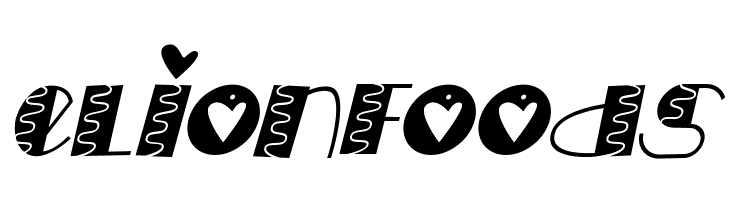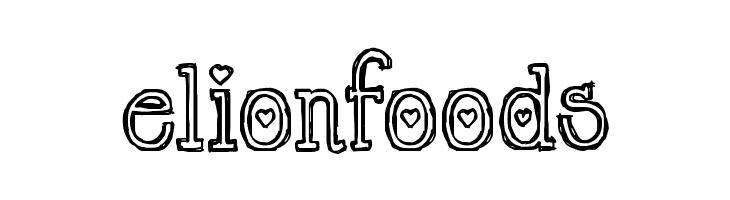
• Louis George Café Light Italic
( Chen Yining )
A sleek, modern, light italic font with smooth curves and consistent stroke width.
• Love And Faith
A playful, casual handwritten font with smooth curves and a slightly slanted style.
• LOVE doly
A playful, decorative font with heart motifs and bold, whimsical characters.
• LOVE doly Italic
A playful, heart-themed italic font with bold, decorative letterforms.
• LoveBombs
A bold, distressed font with a grunge, urban street art vibe.
• LovesLabour
An ornate and decorative script font with elaborate flourishes.
• Lovina Script
A graceful, cursive script font with a natural, handwritten style.
• LRT Chickenhawk
• LRT Nutshell Library
( Lauren Thompson - www.nymfont.com/ )
A bold, decorative font with intricate patterns and playful details.
• LRT Nutshell Library Black
( Lauren Thompson - www.nymfont.com/ )
A bold, serif font with dramatic strokes and high contrast, ideal for impactful headlines.